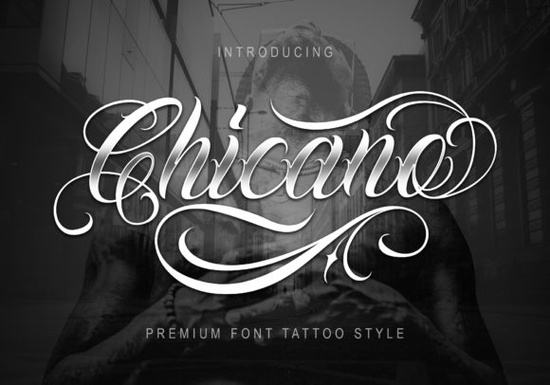
If you're looking for a handwritten font that carries weight, attitude, and authenticity especially for tattoo-inspired designs, streetwear graphics, or bold signage the Chicano Font fits naturally into your workflow. It’s not just another script font; it’s built with the rhythm and contrast of classic Chicano lettering: thick downstrokes, subtle tapering, and intentional imperfections that feel hand-drawn, not digitized. Designers who work with cultural storytelling, small-batch apparel brands, or print-on-demand shops often find it especially useful for creating pieces that resonate with sincerity not trend-chasing.
What makes Chicano Font different from other script fonts?
Most script fonts lean either playful or elegant but Chicano Font sits confidently in the middle: grounded, expressive, and legible even at smaller sizes. Unlike overly ornate scripts that blur together on fabric or stickers, this one holds its shape. The letters have consistent spacing and strong internal contrast, so it reads clearly on t-shirts, enamel pins, or social media banners even without extra effects like outlines or shadows.
It also includes alternate characters and ligatures, which means you can switch up common letter pairings (like “th” or “er”) to avoid repetition in longer phrases. That’s helpful if you’re designing multiple variations for an Etsy shop or rotating merch drops.
Where do designers actually use it?
You’ll see Chicano Font working quietly but effectively in real projects:
- Custom tattoo flash sheets for local artists
- Small-batch coffee bag labels especially when paired with earthy tones and minimal layouts
- Latino-owned business signage (e.g., barber shops, bakeries, record stores)
- Instagram story text overlays for creators sharing personal stories or community events
- DIY greeting cards or wedding invitations where warmth and individuality matter more than formality
Because it’s a single-weight, all-caps-friendly script, it pairs well with clean sans-serifs (like Montserrat or Inter) or textured display fonts for contrast. If you’ve used Coffee Font Extras, you’ll recognize how both support casual, artisanal vibes but Chicano Font brings more visual authority and cultural nuance.
How does it compare to similar fonts on Creative Fabrica?
While The Sunnyside Font leans friendly and breezy great for café menus or summer campaigns Chicano Font feels more deliberate and rooted. It shares some structural DNA with Relationship Font (both are handwritten), but Chicano Font has tighter spacing and less bounce, making it better suited for impactful headlines over romantic quotes. For love-themed projects, Amor Note Font offers softer curves and flourishes, while Breakfast Font is looser and more breakfast-table casual.
- Avoid stretching or skewing the font; its strength comes from natural proportions, not distortion.
- Use OpenType features (if your design app supports them) to access alternates some versions include swash capitals or contextual ligatures.
- Pair it thoughtfully try it with a neutral sans-serif for body text, or layer it over subtle textures (like grain or halftone) to enhance its handmade feel.
It’s worth noting that while Chicano Font works beautifully for culturally resonant design, it’s not meant to replace authentic collaboration. If you’re creating work tied to Chicano history or identity, consider consulting with community members or designers from that background fonts are tools, but respect and context shape how they land.